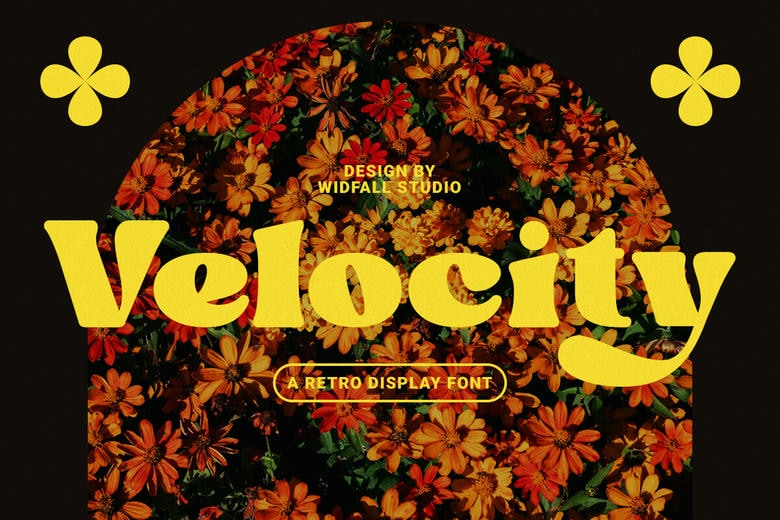
Velocity Font
Velocity is a retro display font that radiates energy and comes from the house of Windfall Studio. This font perfectly imitates the animation of some retro kinds of designs therefore, it is suitable for text with large letters andlogo graphic designs, posters, and branding items.
Velocity brings dash of velocity to designs and has a very modern appeal with its curvy lines that looks like they were inspired from the old-school F-1 race car designs. For instance, a sports logo, a design that needs to convey that it is from an old school video game, or a daring advertisement, Velocity offers a strong and prominent appeal.
Velocity Serif Retro Font